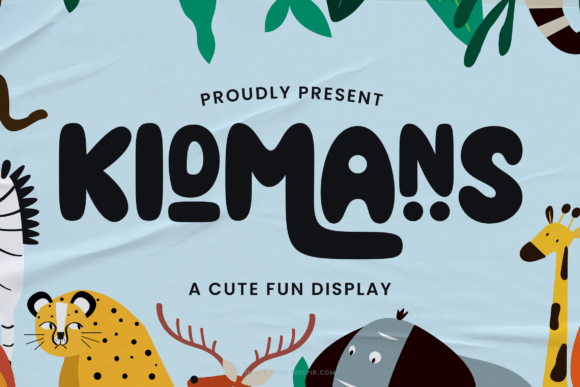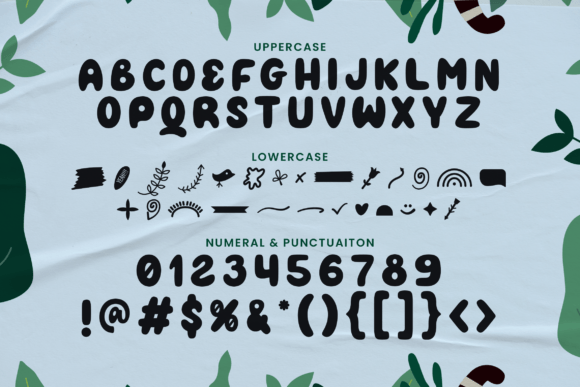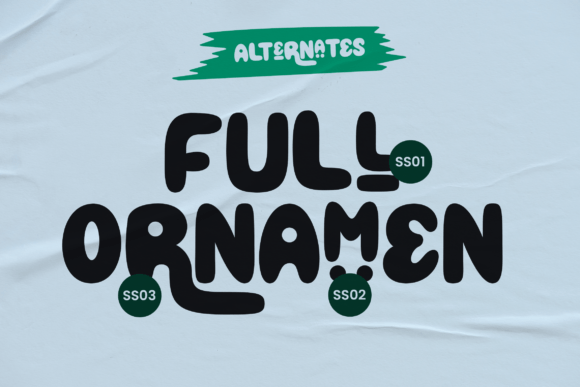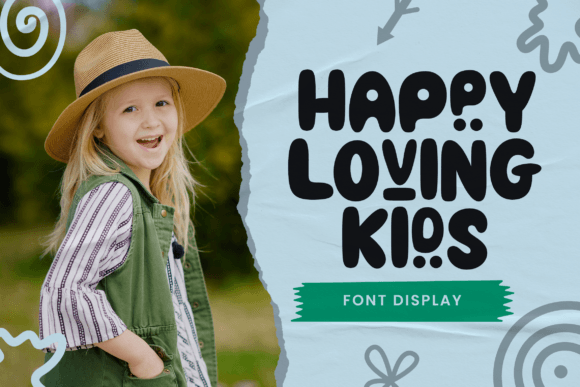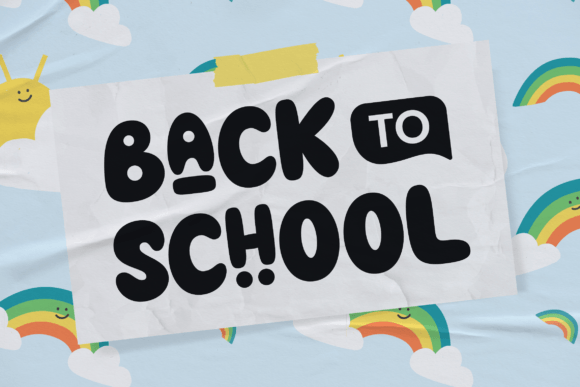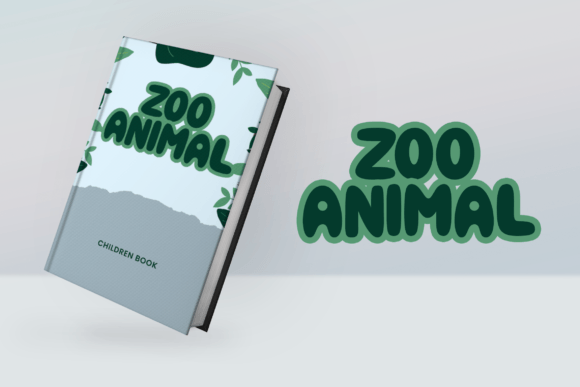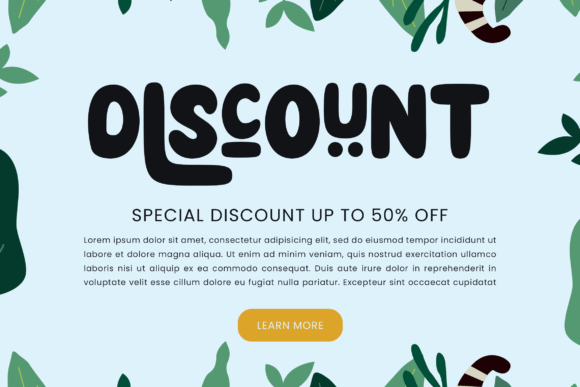
Discover Your New Favorite Font: Kidmans
Who hasn’t experienced that moment when you’re working on a project and the perfect font suddenly pops into your head? For designers, it’s like stumbling upon a hidden treasure – a font that brings your ideas to life. Whether you’re crafting a birthday card or creating a presentation for a client, the right font can make all the difference.
Meet Kidmans Font, a charming display font designed to add a touch of whimsy and personality to your projects. With its cute and friendly feel, Kidmans Font is perfect for a wide range of applications, from digital design to handmade crafts. As a PUA-encoded font, you’ll have access to all the glyphs and swashes you need to create stunning designs with ease.
Kidman’s Font Key Features
- Font Style: Kidman’s Font is a unique, hand-drawn font that features a playful and whimsical design.
- Unique Characteristics: Kidman’s Font features a distinctive, hand-crafted look with irregularities and imperfections that give it a one-of-a-kind feel.
Kidmans Font Review
I recently had the chance to work with the Kidmans Font, and I must say it’s a unique addition to any design project. ✨ The font’s organic, hand-drawn feel gives it a charming, personal touch that’s perfect for creative endeavors like children’s books, wedding invitations, or even advertising campaigns. The font’s variability in letterforms and punctuation adds to its charm, making it feel almost like handwriting.
- ✨ The font’s unique style is a great conversation starter and can add a touch of whimsy to any design.
- ✨ The font’s variability in letterforms and punctuation adds to its charm and makes it feel more human.
However, there are some limitations to consider. ⚠️ The font’s irregularities can sometimes make it difficult to read, especially in large blocks of text. Additionally, the font’s lack of standardization can make it challenging to pair with other fonts, as it may clash with more traditional typefaces.
Overall, I would say that Kidmans Font is a great choice for designers looking to add some personality to their projects. While it may not be suitable for every design, its unique charm and character make it a great option for those looking to stand out. Just be mindful of the potential limitations and use it thoughtfully.
Kidman’s Font is a great choice for:
For optimal results, use Kidman’s Font in combination with bold and playful graphics to create a unique and eye-catching design.